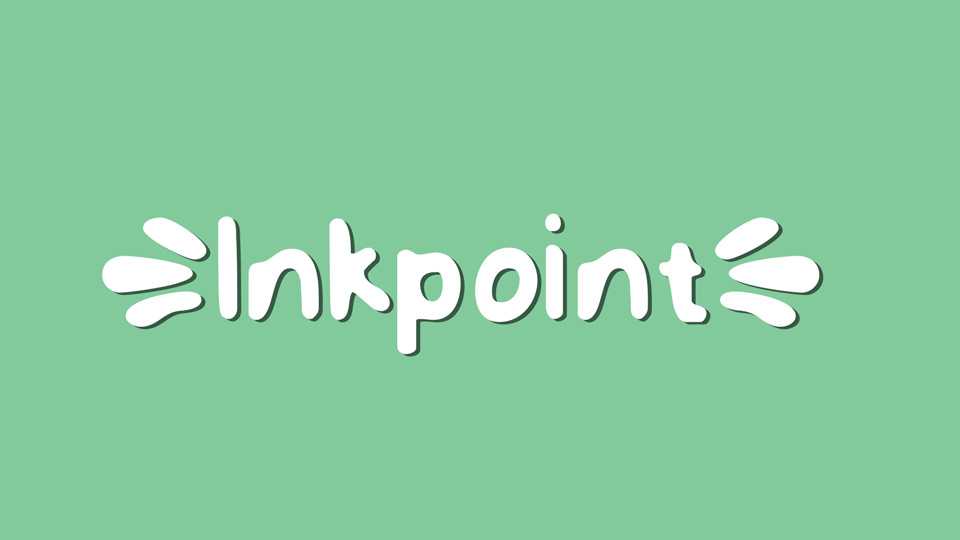
Download Inkpoint font, a cute and sweet handwritten typeface that will add a charming, natural touch to any projects. Inkpoint font is perfect for anything from quotes and packaging designs to greeting cards and children’s books.